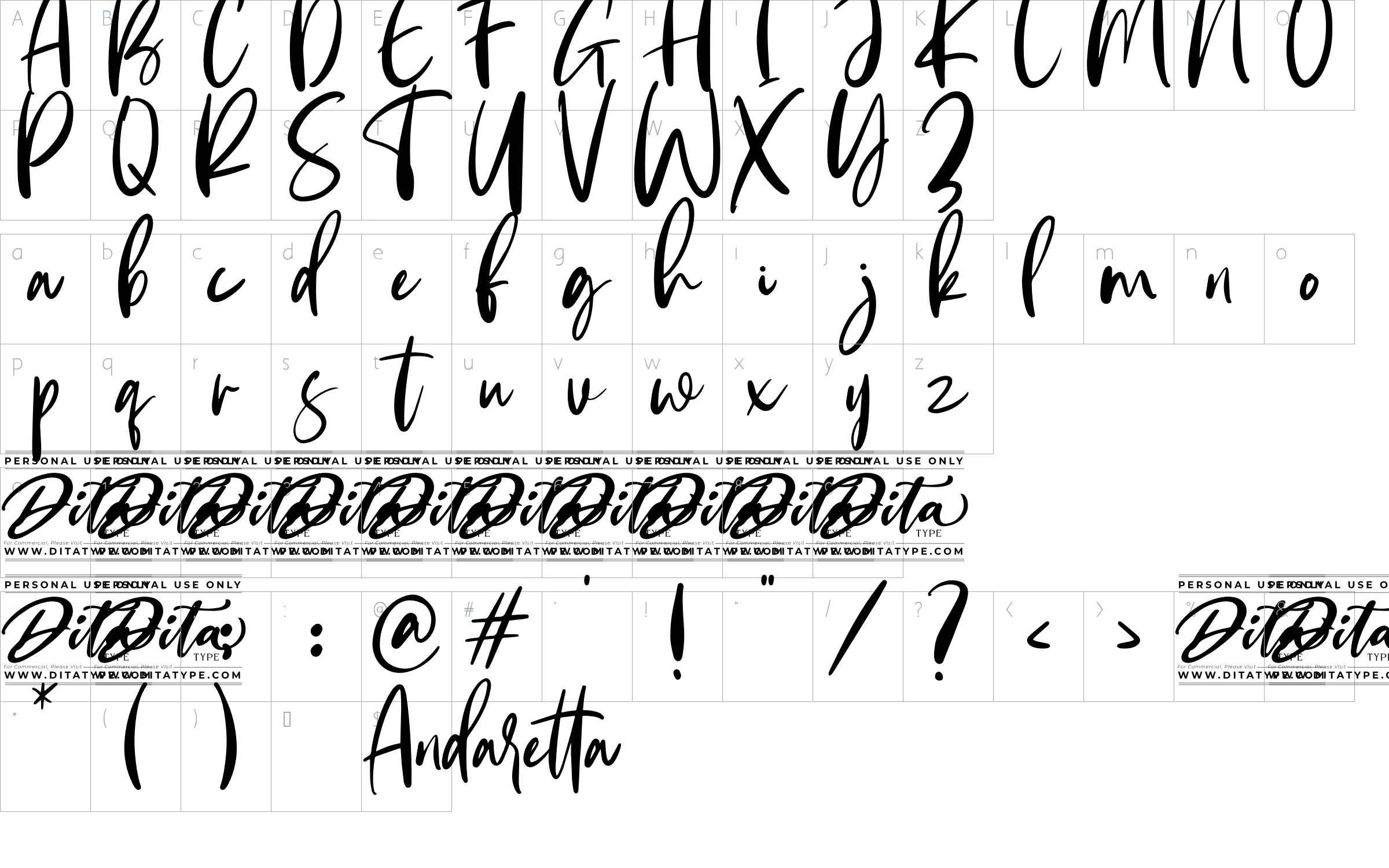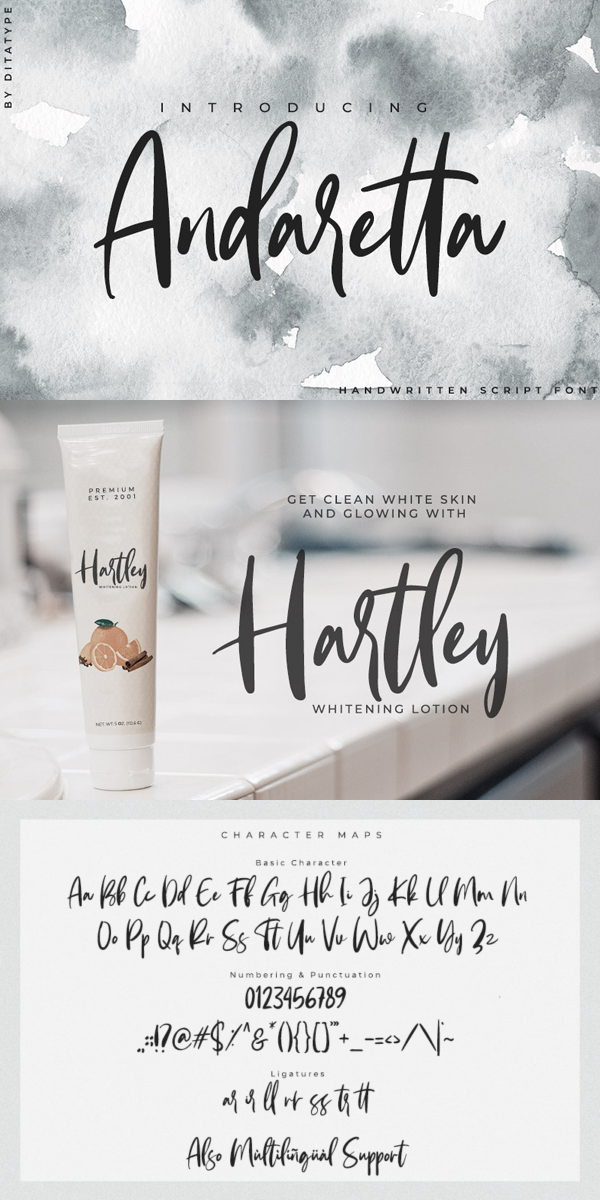
Andaretta Font
About Andaretta
Andaretta is a modern handwritten font. With a classy and natural handwritten style, it brings a classy and chic typeface. Andaretta is best used for weddings, branding, logotype, and quotes.
– Beautiful Ligatures